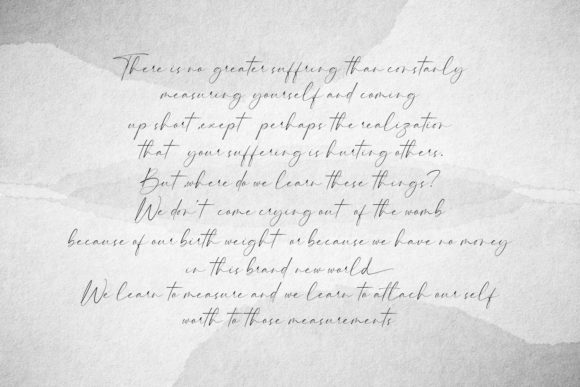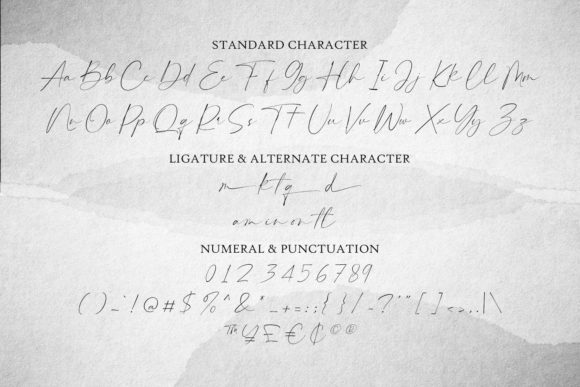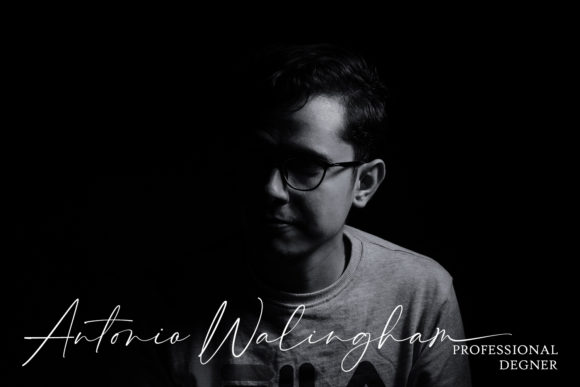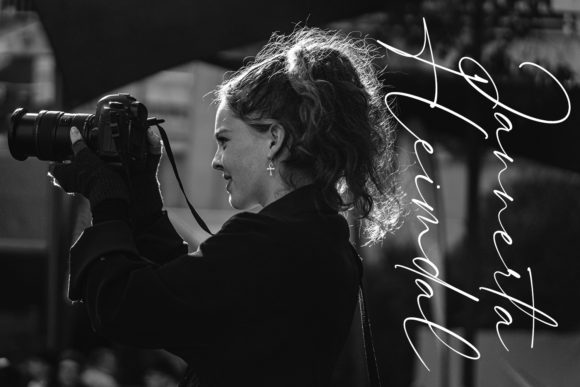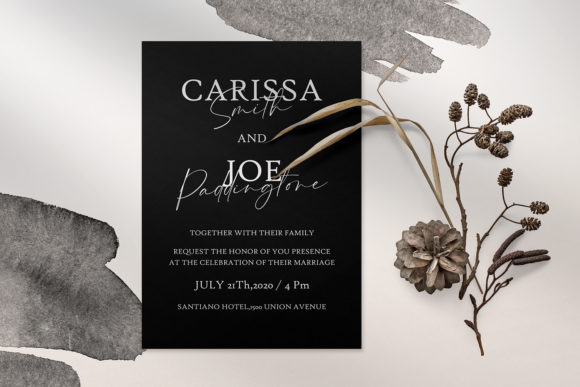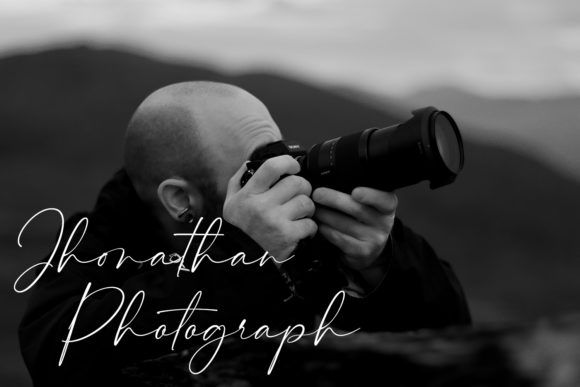
Hammington Signature Font: Elevate Your Designs with Elegance
In the world of typography, a font can make or break a design. For designers and crafters seeking to add a touch of elegance and sophistication to their work, Hammington Signature Font is an excellent choice. This delicate, smooth, and thin lettered handwritten font is versatile and can be used for a wide range of purposes, from logos and wedding invitations to headings, t-shirts, and more.
What is Hammington Signature Font?
Hammington Signature Font is a beautiful, handwritten font designed to bring a sense of refinement and poise to any design project. Its delicate and smooth strokes make it perfect for creating elegant and sophisticated designs that stand out from the crowd. The font’s thin letters add a touch of whimsy and playfulness, making it suitable for a variety of applications.
Key Features of Hammington Signature Font
- Delicate and smooth strokes: Hammington Signature Font features delicate and smooth strokes that give it a refined and elegant look.
- Thin lettered: The font’s thin letters make it perfect for creating designs that require a touch of whimsy and playfulness.
- Handwritten: The font’s handwritten style gives it a personal and unique touch, making it suitable for designs that require a human touch.
- Versatile: Hammington Signature Font can be used for a wide range of purposes, from logos and wedding invitations to headings, t-shirts, and more.
Uses of Hammington Signature Font
Hammington Signature Font is a versatile font that can be used for various purposes, including:
- Logos: Create a lasting impression with a logo that features Hammington Signature Font.
- Wedding Invitations: Add a touch of elegance and sophistication to your wedding invitations with this beautiful font.
- Headings: Use Hammington Signature Font to create headings that stand out from the crowd.
- T-shirts: Create unique and stylish t-shirts with Hammington Signature Font.
- Letterhead: Elevate your letterhead with a font that exudes elegance and sophistication.
- Signage: Use Hammington Signature Font to create eye-catching signage that grabs attention.
- Labels: Add a touch of whimsy and playfulness to your labels with this beautiful font.
- News: Use Hammington Signature Font to create news headlines that stand out from the crowd.
- Posters: Create stunning posters with Hammington Signature Font that grab attention.
- Badges: Use Hammington Signature Font to create badges that feature a touch of elegance and sophistication.
Why Choose Hammington Signature Font?
There are many reasons why designers and crafters choose Hammington Signature Font for their projects. Here are a few:
- Elegance and sophistication: Hammington Signature Font adds a touch of elegance and sophistication to any design project.
- Versatility: The font can be used for a wide range of purposes, making it a great addition to any designer’s toolkit.
- Easy to read: Despite its delicate and thin strokes, Hammington Signature Font is easy to read, making it perfect for designs that require a clear and concise message.
- Unique and personal touch: The font’s handwritten style gives it a unique and personal touch, making it suitable for designs that require a human touch.
In conclusion, Hammington Signature Font is a beautiful and versatile font that can elevate any design project. Its delicate and smooth strokes, thin letters, and handwritten style make it perfect for creating elegant and sophisticated designs. With its wide range of uses and ease of readability, Hammington Signature Font is a great addition to any designer’s toolkit. Whether you’re a designer or crafter, Hammington Signature Font is a great choice for your next project.